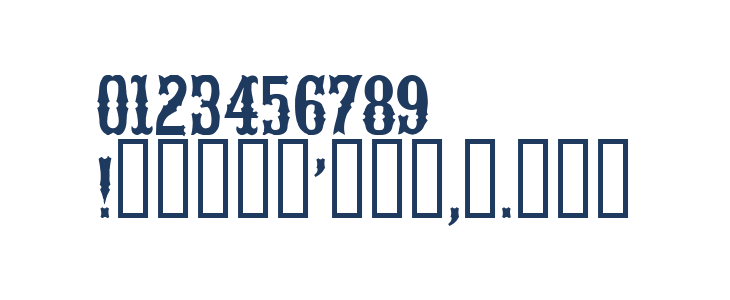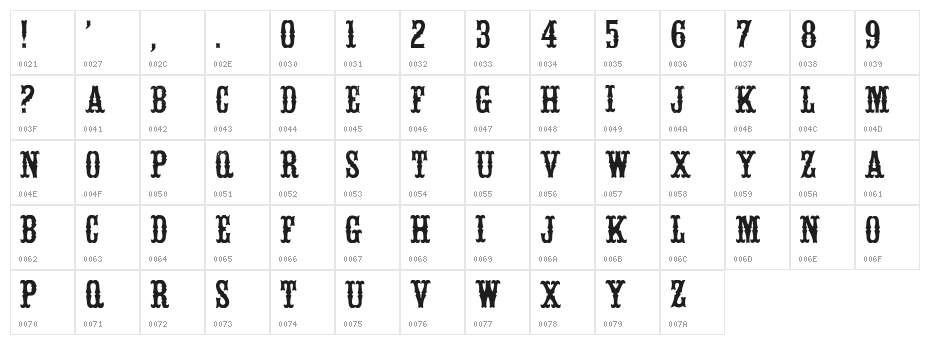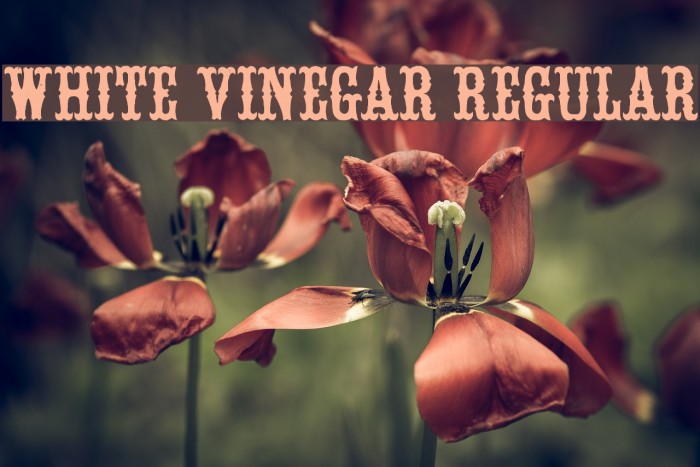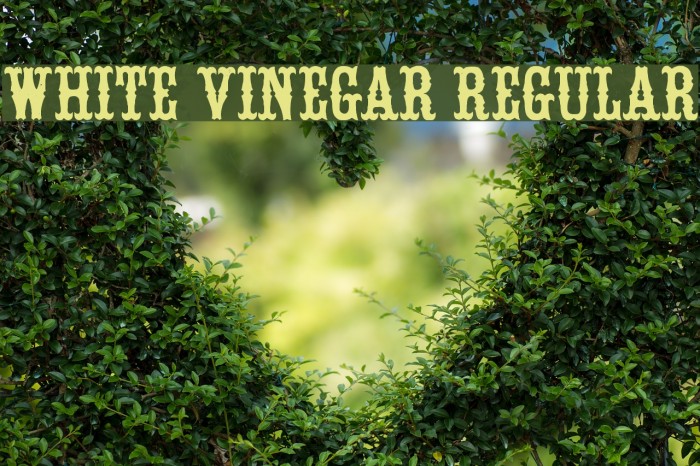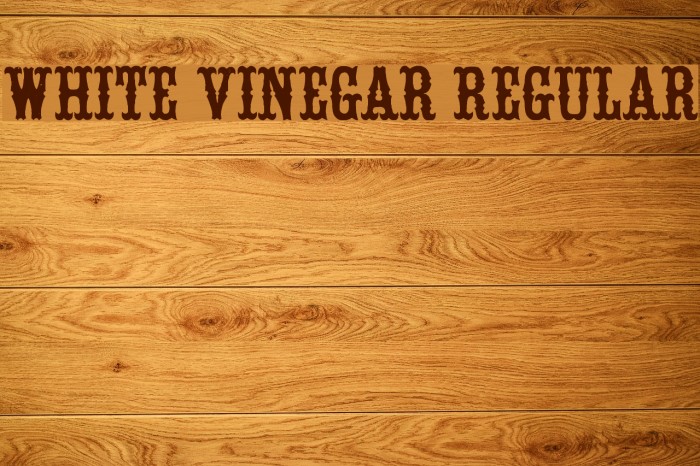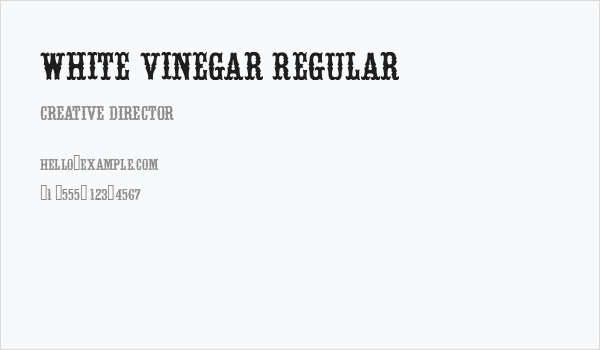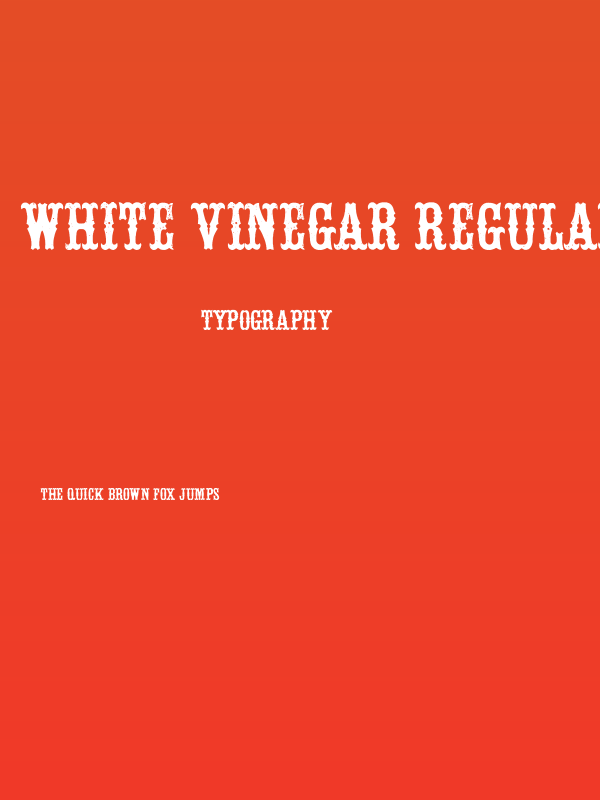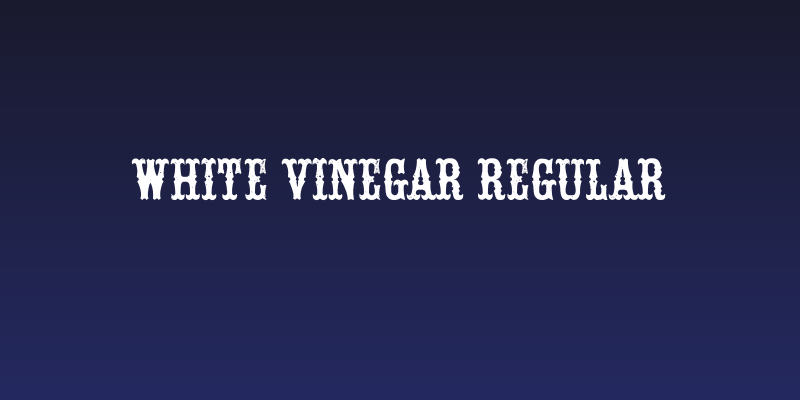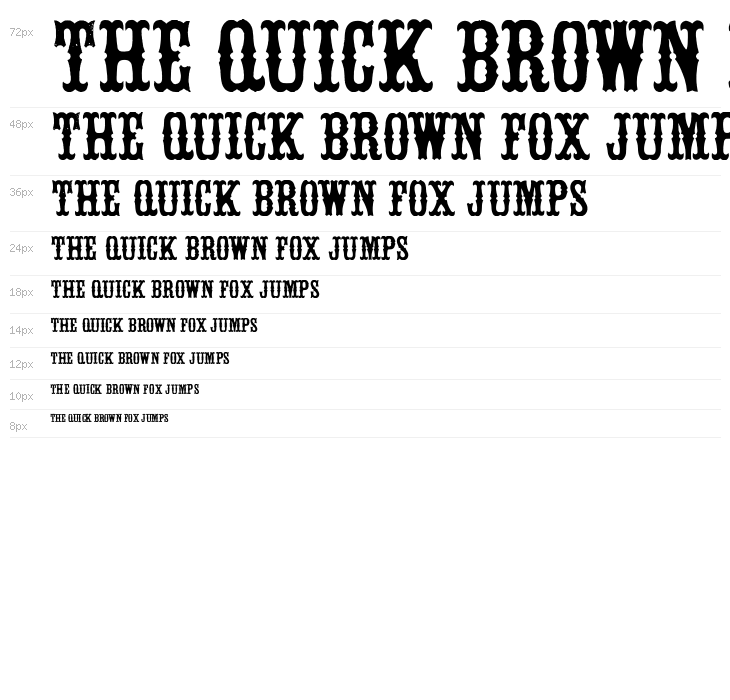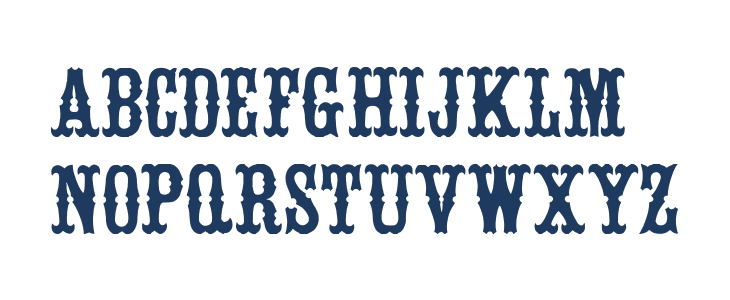
White Vinegar Regular Font
White Vinegar Regular Description
This font features a bold and rugged design with a distressed, textured appearance that gives it a vintage and worn look. The characters are heavily stylized with thick strokes and irregular edges, creating a sense of movement and energy. The uppercase and lowercase letters maintain a consistent style, while the numbers and special characters complement the overall aesthetic. This font is ideal for projects that require a strong, impactful presence with a touch of nostalgia.
| Proposed Projects | Perfect for posters, branding, vintage-themed designs, and packaging. |